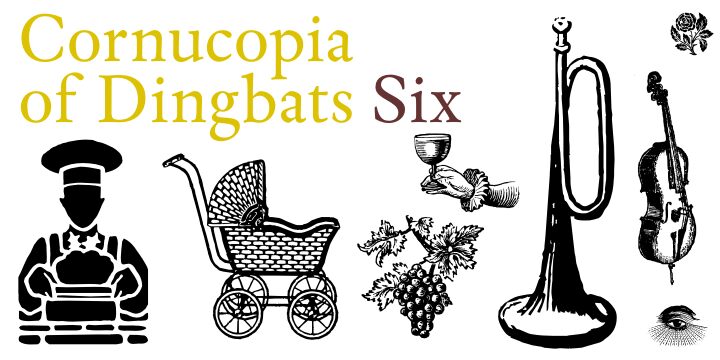
Cornucopia od Dingbats Six by Paulo W. is a free pictorial dingbat font filled with finely engraved objects and figures. Its assortment moves from fruit, flowers, and tableware to musical instruments, sporting gear, a baby carriage, and heraldic creatures. Each symbol has crisp, vintage linework.
Antique illustration links these symbols to restaurant menus, event posters, and nostalgic packaging. They also serve as editorial dividers or themed page ornaments, turning motifs into miniature printed illustrations.
Cornucopia od Dingbats Six